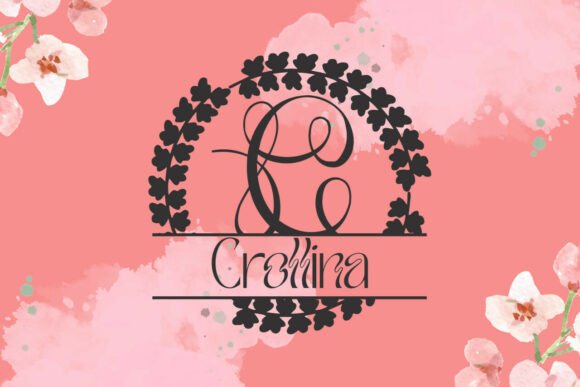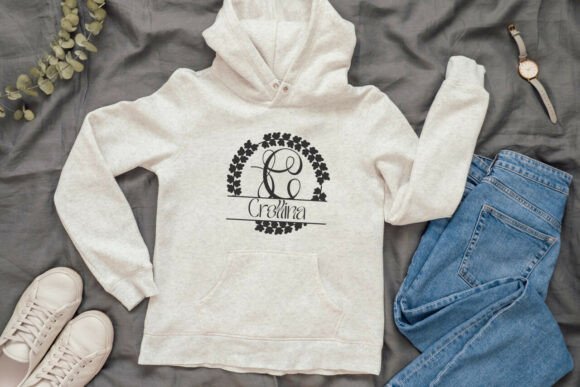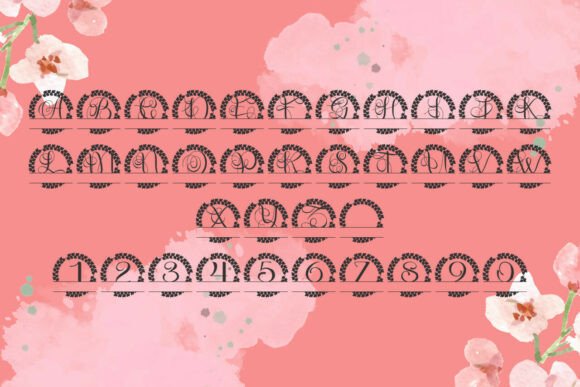
Introduction to Lettravia Split Monogram Font
Have you ever been tasked with designing a special gift or a personal item for a loved one, and you wanted it to be truly unique and meaningful? I’m sure many designers can relate to the pressure of creating something high-quality and personalized within a tight deadline. That’s where the Lettravia Split Monogram Font comes in – a game-changing design resource that turns initials into elegant nameplates in seconds.
This beautiful font is a treasure trove for designers, offering a clean horizontal split that leaves space for names, dates, or short words, ensuring your results look polished with very little effort. With a free download available, you can start using it right away on your next creative project. Whether it’s a wedding gift, family name sign, or boutique packaging, the Lettravia Split Monogram Font is sure to elevate your design to the next level.
One of the best things about this font is its versatility – it pairs beautifully with a simple sans or a light script, making every layout clear and premium. And with a transparent background option, you can easily customize it to fit your design needs. In this article, we’ll dive deeper into the world of Lettravia Split Monogram Font and explore its many uses and benefits.
Key Features of Lettravia Split Monogram Font
- High-quality design suitable for creative projects requiring a unique touch.
- Comes with a transparent background, allowing for easy customization and integration with various backgrounds.
- Designed with a focus on elegance and sophistication, making it perfect for high-end creative projects.
- Features a unique split monogram design that adds a touch of creativity to any project.
Honest Review: Lettravia Split Monogram Font
I recently had the chance to work with the Lettravia Split Monogram Font, and I must say, it’s a unique and creative design resource that can elevate your next project. One of the standout features of this font is its high-quality design, which is perfect for any creative project that requires a touch of elegance.
- ✨ The font’s transparent background makes it easy to overlay on any image or design, giving you complete control over the composition.
- ✨ The font’s modern and sleek design makes it perfect for creating a sophisticated and high-end look for your project.
- ⚠️ The font’s design may not be suitable for all types of projects, particularly those that require a more playful or whimsical tone.
- ⚠️ The font may not be as versatile as some other design resources, which can limit its use in certain creative projects.
Overall, I would recommend the Lettravia Split Monogram Font to designers who are looking for a unique and high-quality design resource to add some sophistication to their project. While it may have some limitations, the font’s modern design and transparent background make it a valuable addition to any designer’s toolkit.
To get the most out of the Lettravia Split Monogram Font, use it with a transparent background to create a modern and creative look for your project. You can also experiment with different font sizes and colors to achieve the desired effect.
The Lettravia Split Monogram Font is ideal for creative projects such as wedding invitations, business cards, and social media graphics. Its unique design and high-quality features make it a popular choice among designers and artists.
Yes, the Lettravia Split Monogram Font is designed to be used on a transparent background, making it perfect for designers who want to create high-quality designs with a transparent or semi-transparent effect.
Q: What is the recommended font size for the Lettravia Split Monogram Font?
The recommended font size for the Lettravia Split Monogram Font varies depending on the design application and the desired effect. However, as a general rule, we recommend using font sizes between 24pt and 48pt for optimal readability and visual impact.